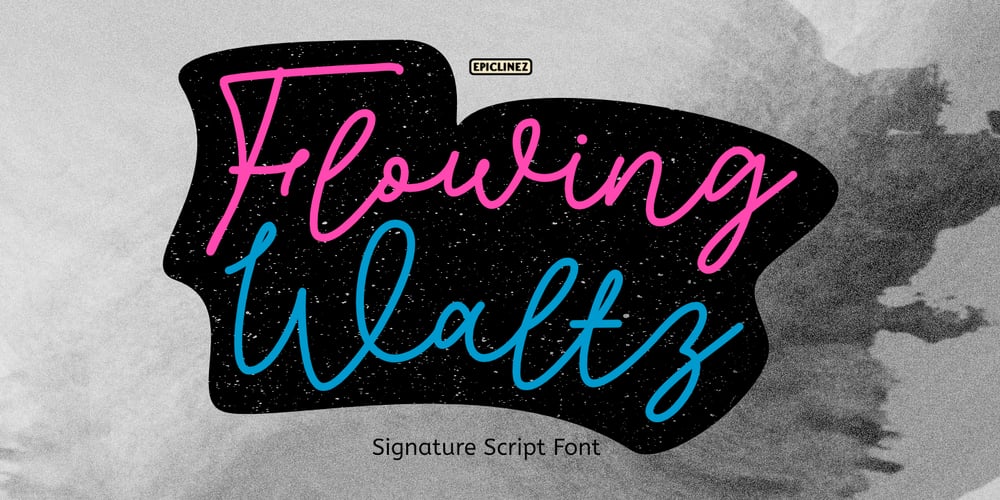
Flowing Waltz Font Family was designed by Aldy Sidik and published by Epiclinez. Flowing Waltz contains 1 styles and family package options. Flowing Waltz is a stylish signature font with a natural flowing style. This font is a good choice for branding design.